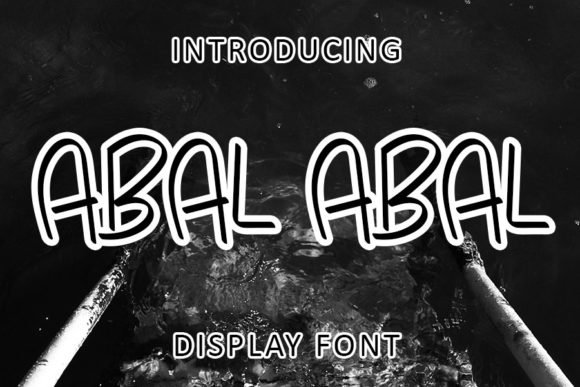
Unlocking Endless Creativity with the Abal Abal Font
Have you ever stared at a blank canvas, unsure of where to start your next creative project? You’re not alone. Sometimes, all it takes is a spark of inspiration to get those creative juices flowing. For me, it was discovering the Abal Abal Font – a cute and robotic-looking display font that opened doors to endless possibilities.
As a versatile and natural font, Abal Abal is perfect for designers looking to add a unique touch to their work. With its quirky style, it’s surprisingly versatile, making it a great fit for a wide range of designs. From advertisements to social media graphics, the Abal Abal Font is sure to bring a playful and modern twist to your creations.
Abal Abal Font Key Features
- Font Family: Abal Abal is a unique, custom font designed for specific use cases, making it a one-of-a-kind choice.
- Unique Characteristics: The font’s unique design elements, such as its custom letterforms and ligatures, set it apart from other fonts and add a touch of personality to designs.
Abal Abal Font Review
Overall, I found the Abal Abal font to be a visually striking choice for digital designs. ✨ Its unique blend of modern and traditional elements can add a distinctive touch to your projects.
- ✨ Versatility: Abal Abal font can be used in a variety of design contexts, from logos to body text.
- ✨ Unique Character Set: The font’s distinctive letterforms and symbols can help convey a sense of personality and style.
- ✨ Readability: Despite its unique appearance, the font remains relatively easy to read, even at smaller font sizes.
- ⚠️ Limited Font Sizes: While the font is readable, it can become difficult to use at extremely small font sizes, which may limit its usability in certain contexts.
- ⚠️ Limited Language Support: Abal Abal font may not support all languages, which could be a limitation for designers working on multilingual projects.
Overall, I would recommend the Abal Abal font for designers looking to add a unique touch to their projects. While it may have some limitations, its versatility and distinctive character make it a compelling choice for the right designs.
The Abal Abal Font is ideal for:
1. Creating unique and eye-catching titles and headings.
2. Designing packaging and branding materials.
3. Adding a touch of personality to social media graphics and content.
4. Creating custom typography for websites and mobile apps.